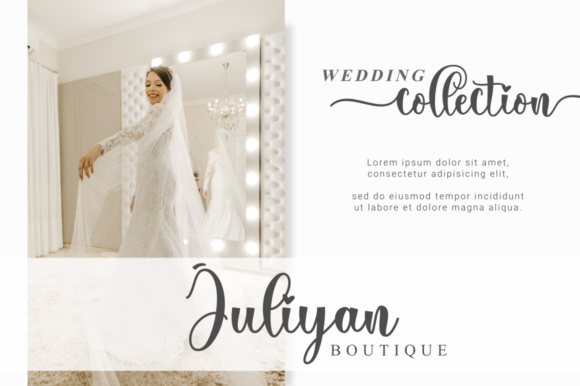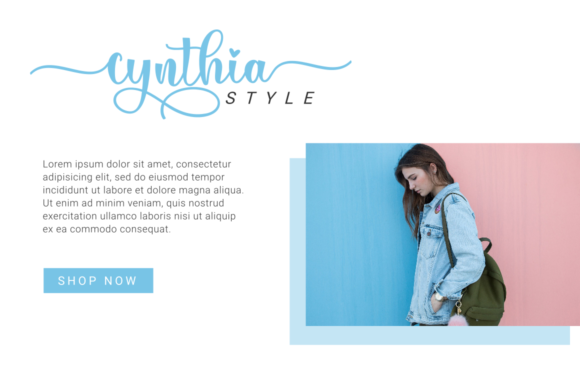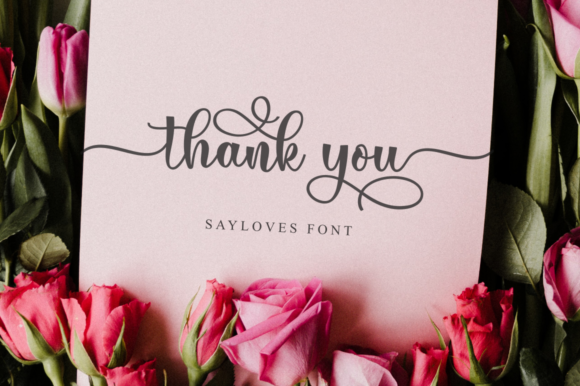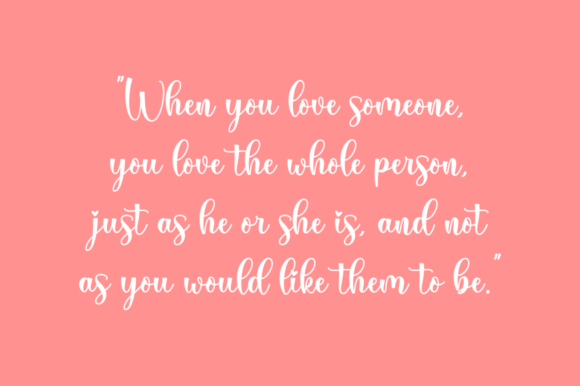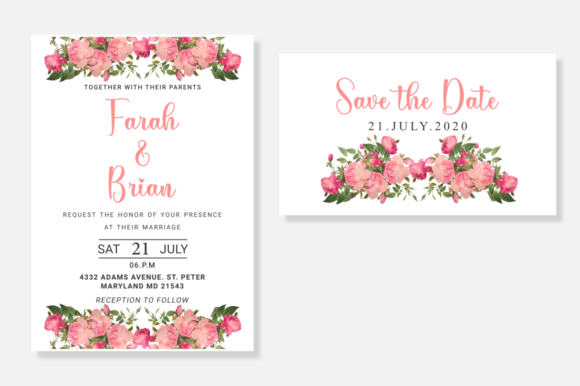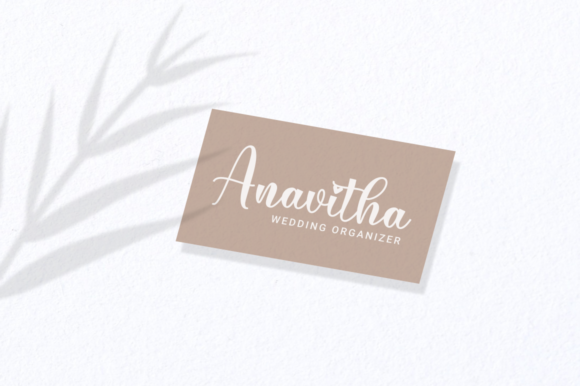
Introduction to Sayloves Font
Sayloves is a beautiful and modern calligraphy font.
It is PUA encoded which means you can access all of the glyphs and swashes with ease It features a varying baseline, smooth lines, gorgeous glyphs and stunning alternates.
Key Features of Sayloves Font